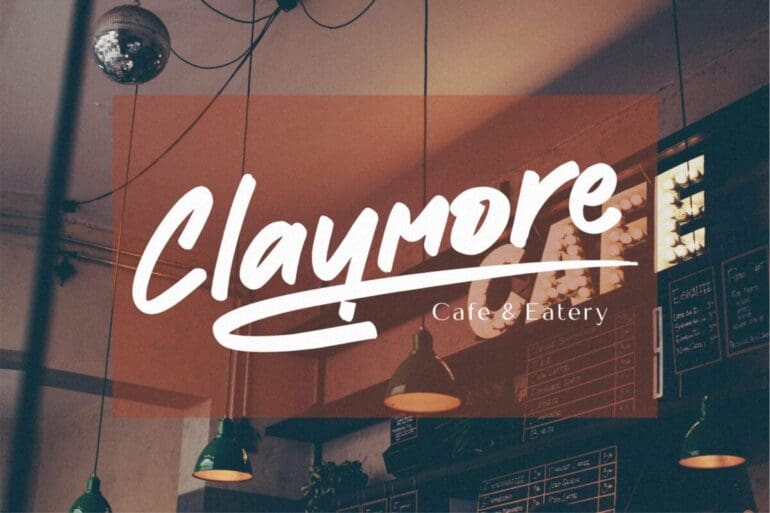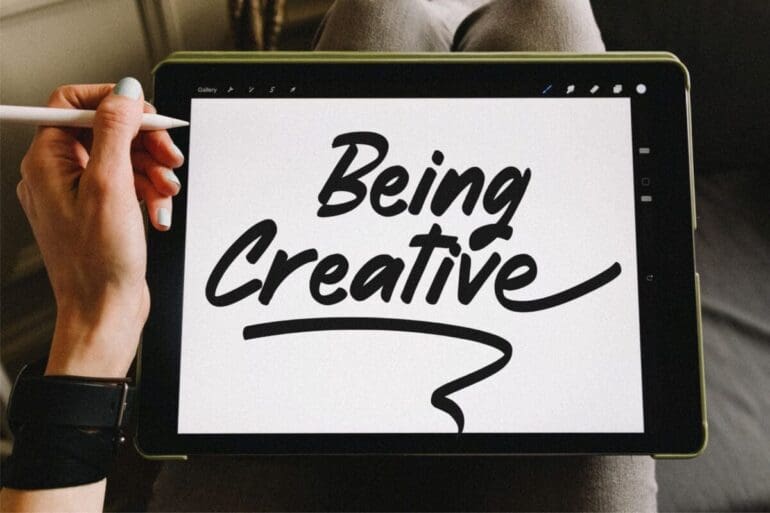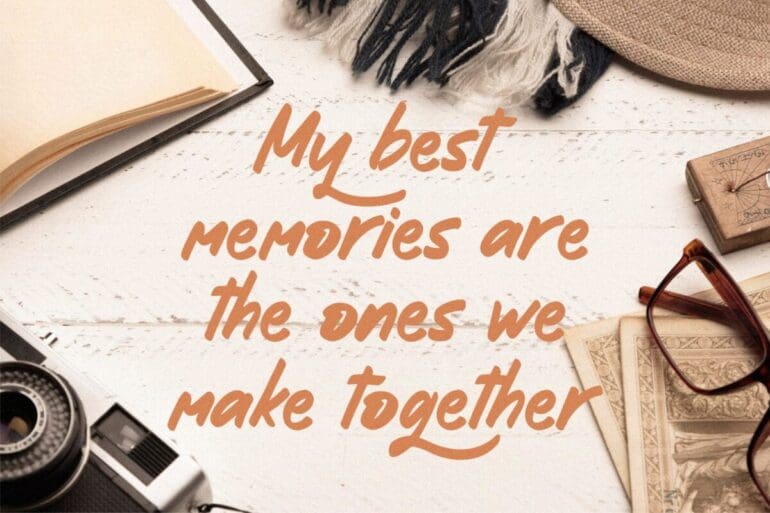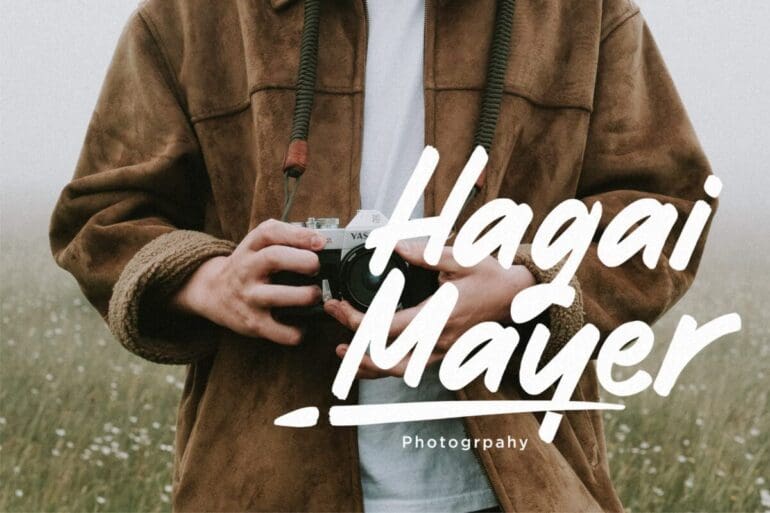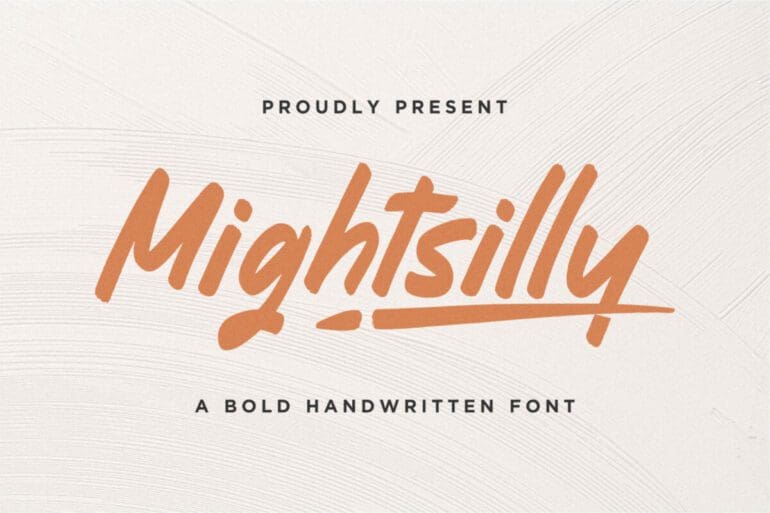
Mightsilly Font
Mightsilly is a chic and friendly display font. It is PUA encoded which means you can access all of the glyphs and swashes with ease! Add it confidently to your projects, and you will love the results.